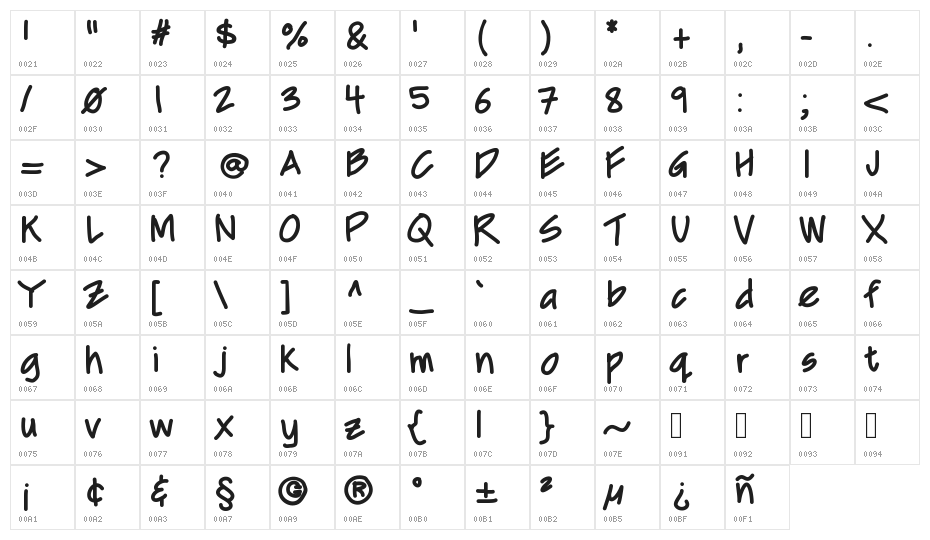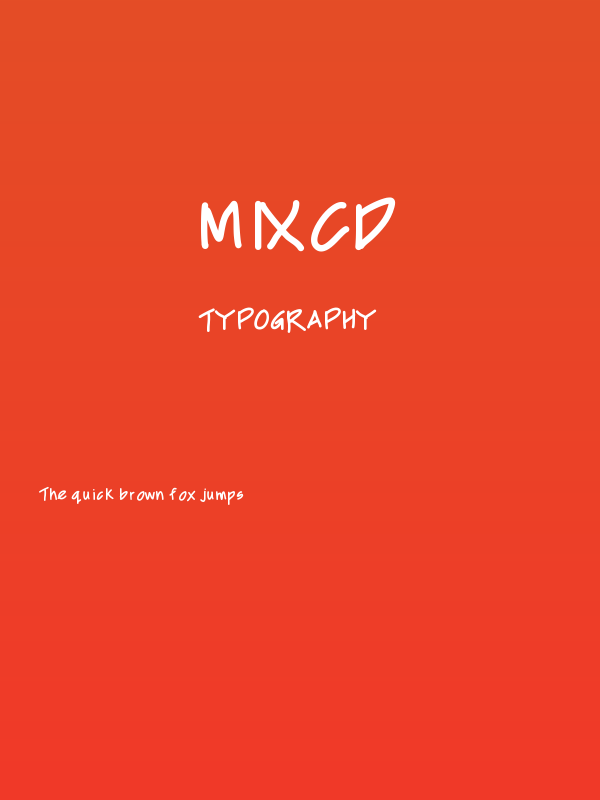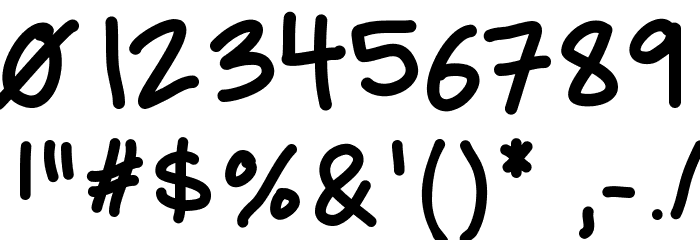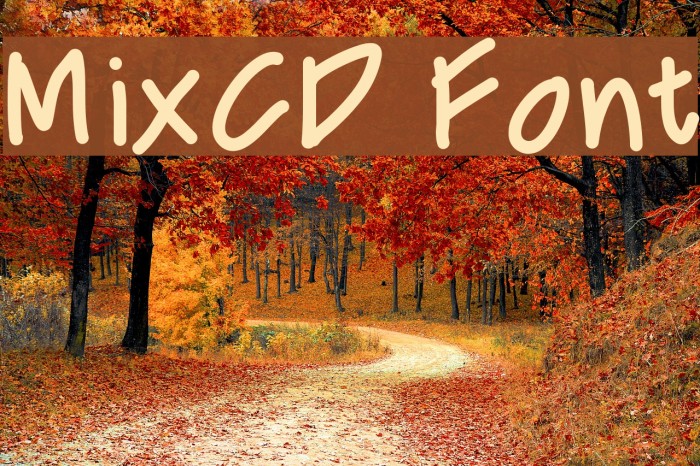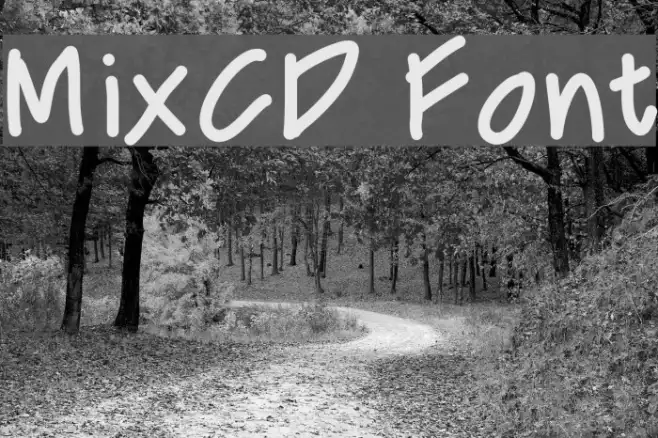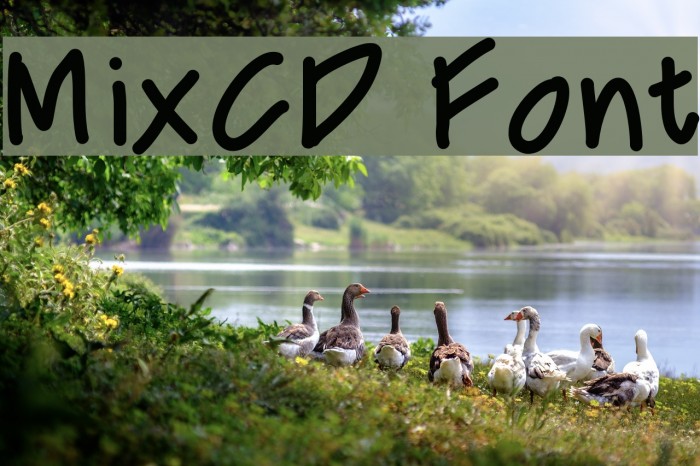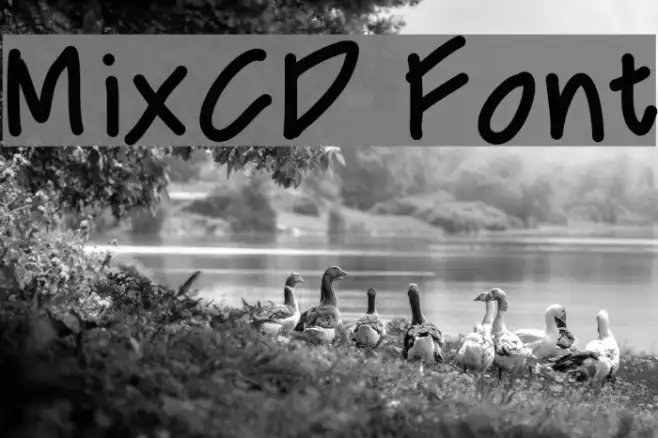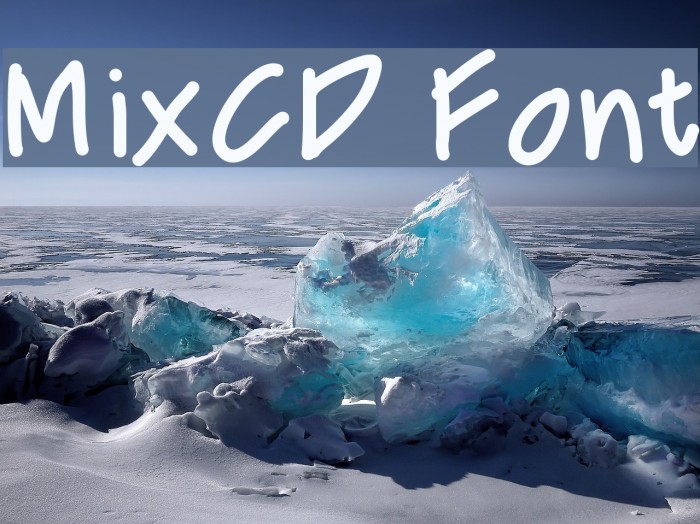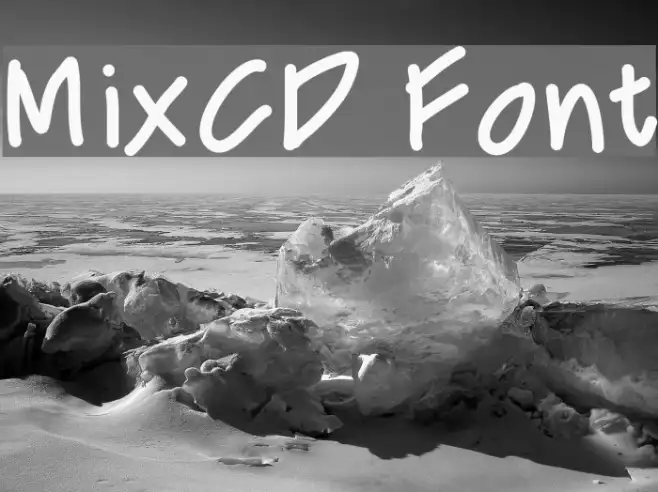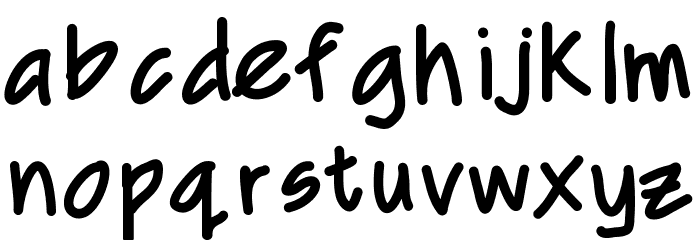
MixCD Font
MixCD Description
This font features a playful and casual handwritten style, characterized by its bold and slightly irregular strokes. The letters have a natural flow, mimicking the look of a marker or brush pen. The uppercase and lowercase characters maintain a consistent style, with rounded edges and a slight slant, adding to its informal and approachable appearance. Numbers and special characters are designed to match the overall aesthetic, ensuring a cohesive look across all text. The font's organic feel makes it suitable for projects that require a personal touch.
| Use Case | Logos, Headlines, Informal Text |
| Proposed Projects | Ideal for greeting cards, children's books, casual branding, and social media graphics. |